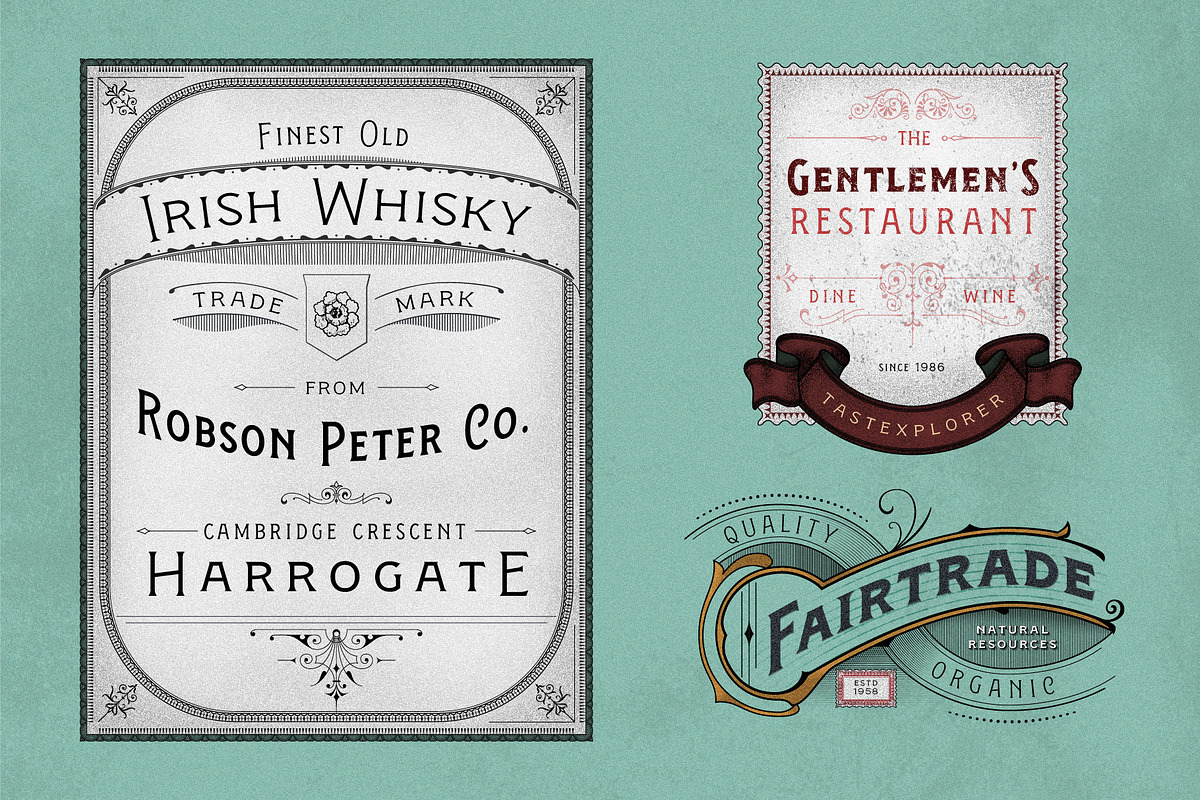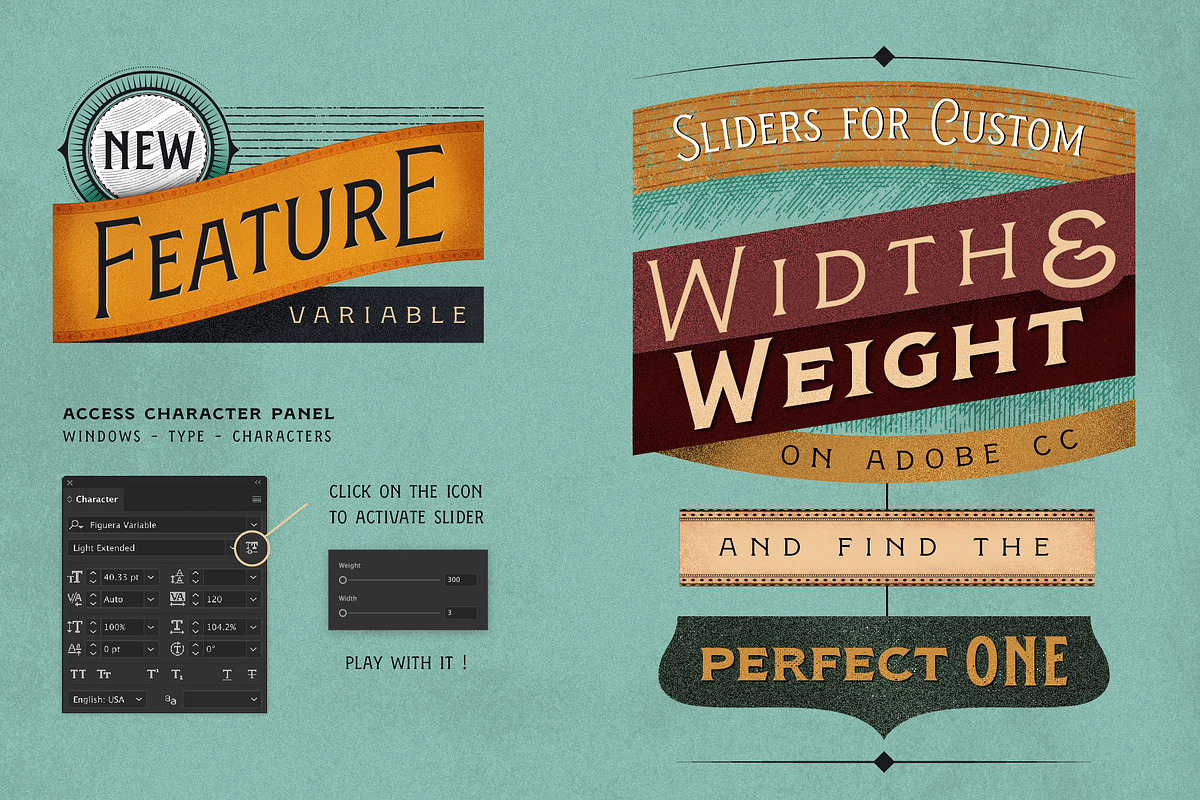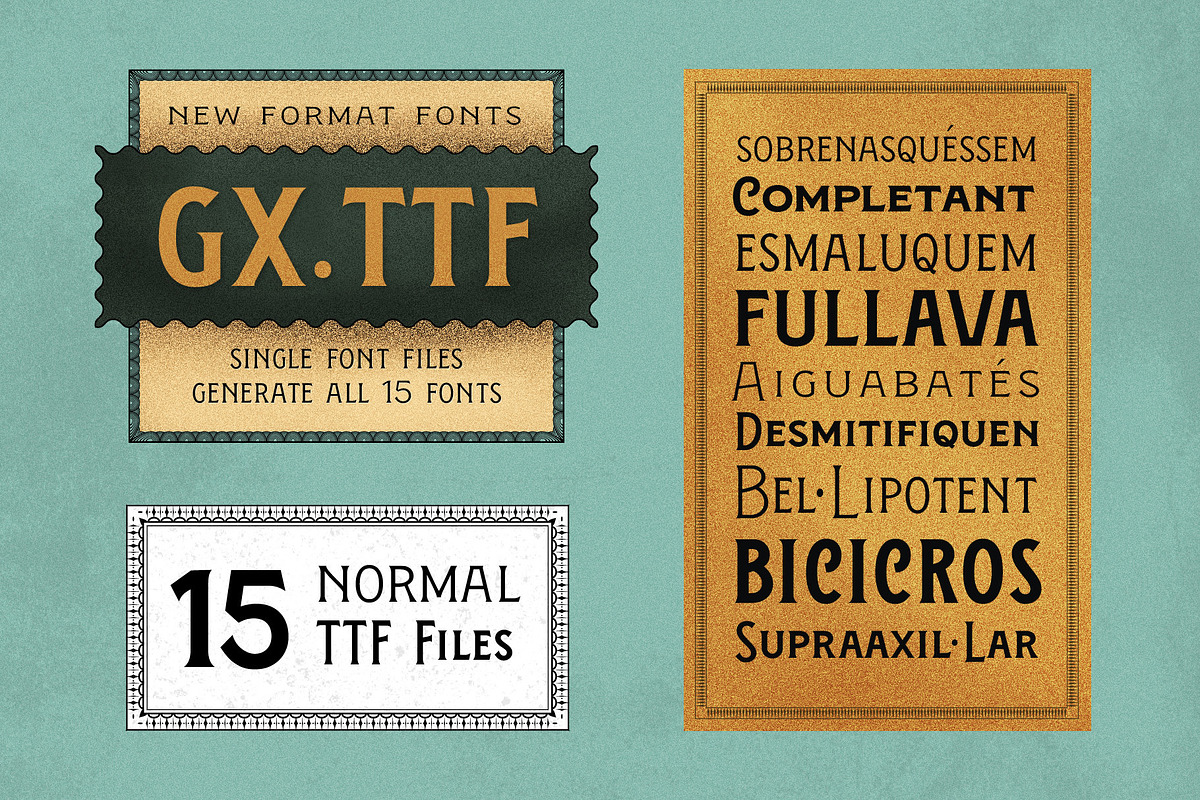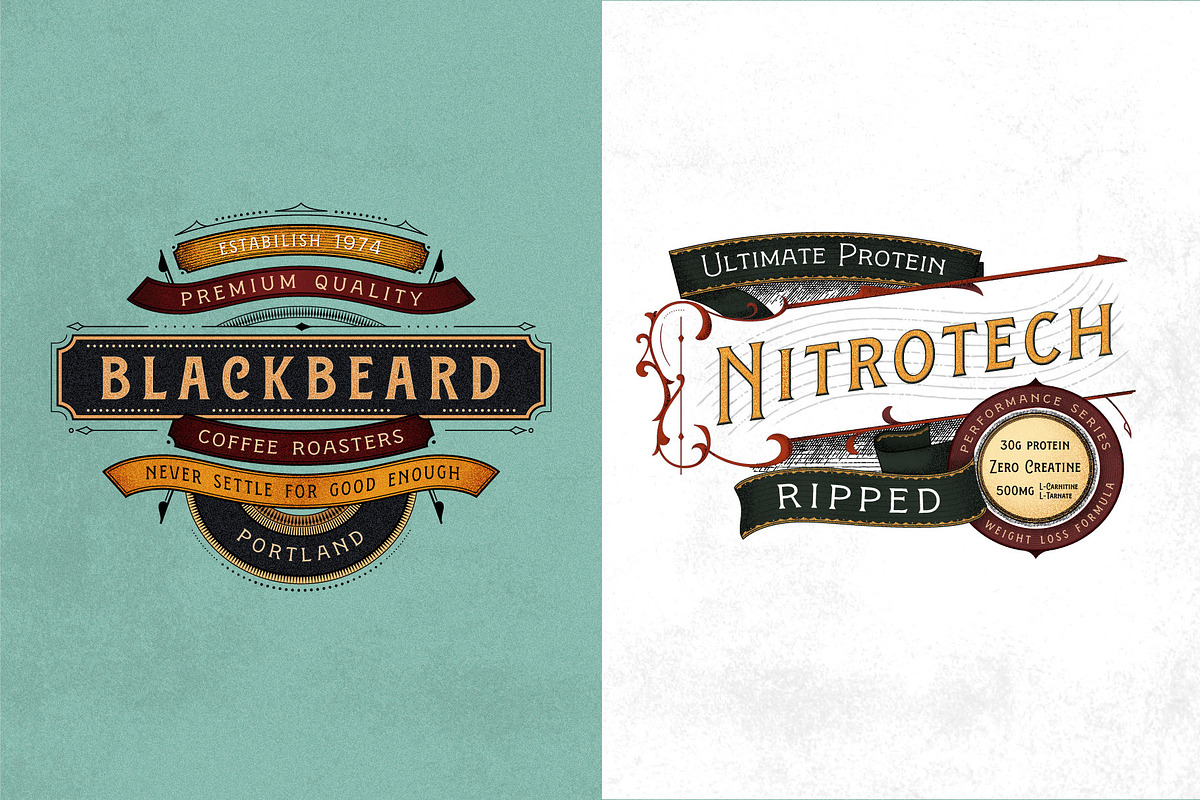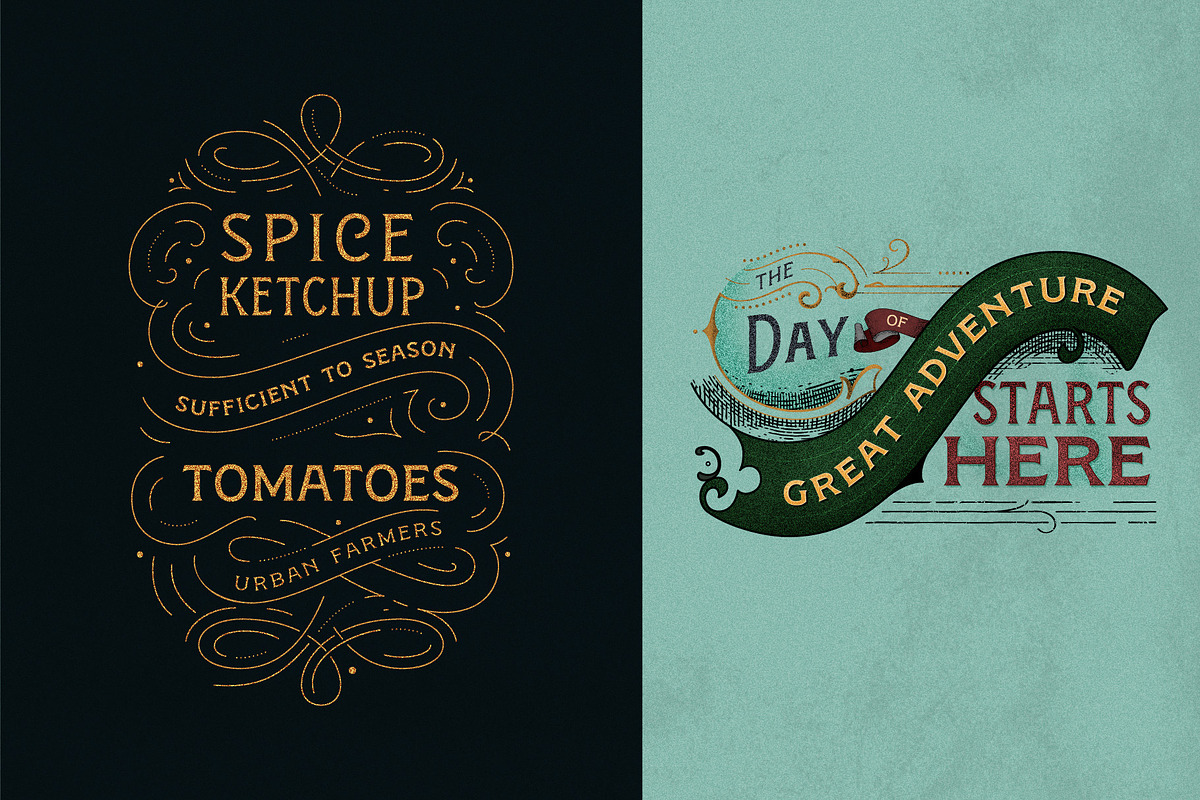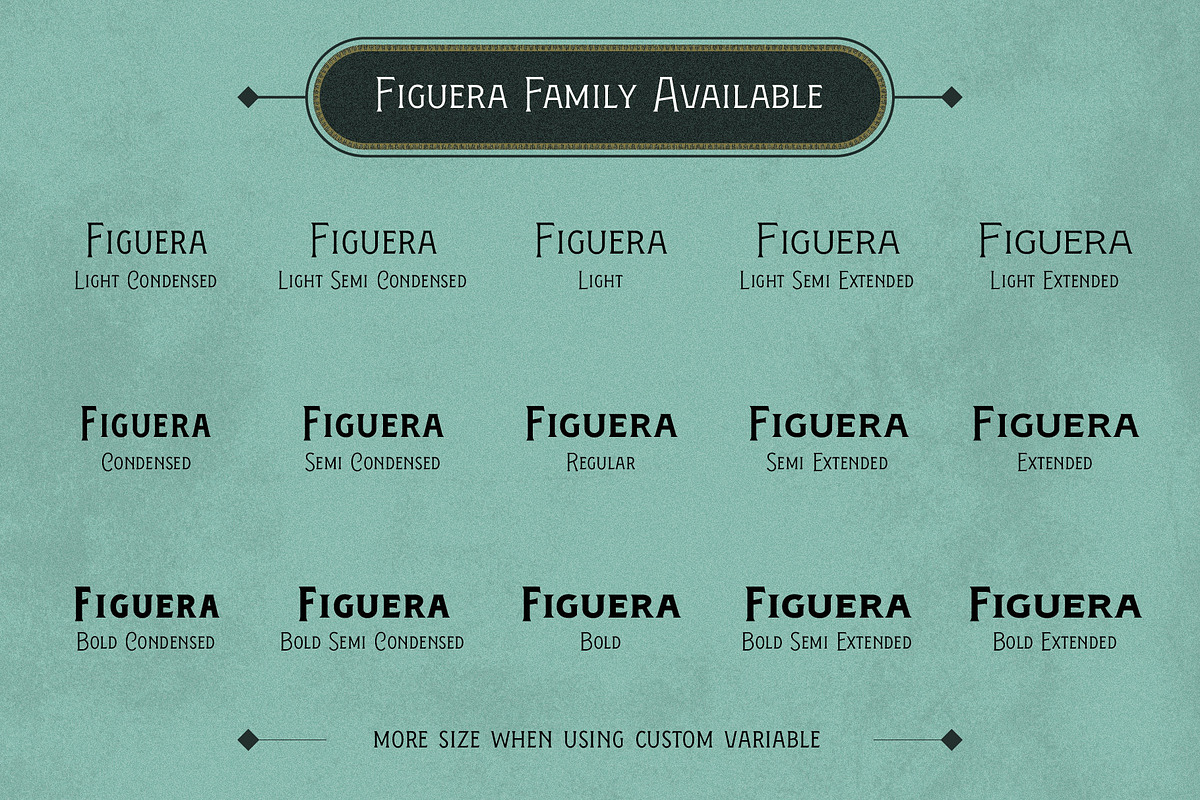
Figuera Variable Fonts
Figuera Variable are inspired with an Serif victorian style of typefaces. With a different width and weight you can make your design are more fluid within just only use a single family fonts. Comes with different format and also Bonus Borders.
It’s a brand new fonts comes with a new Variable Features. Variable that makes you create an custom width and weight aside in the available font files.
Figuera Variable Fonts by Adam Fathony fits naturally into Branding, posters, packaging, typography.